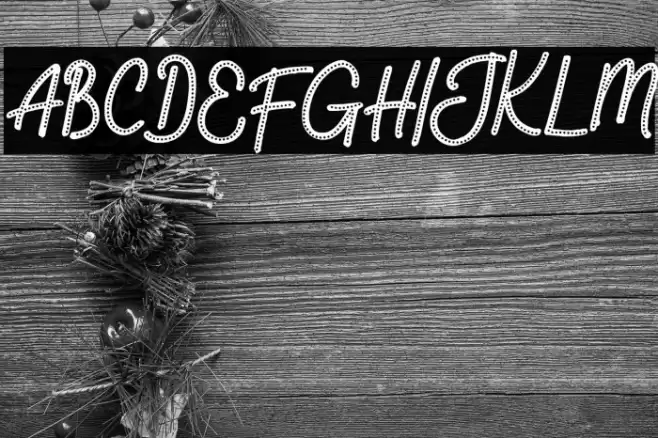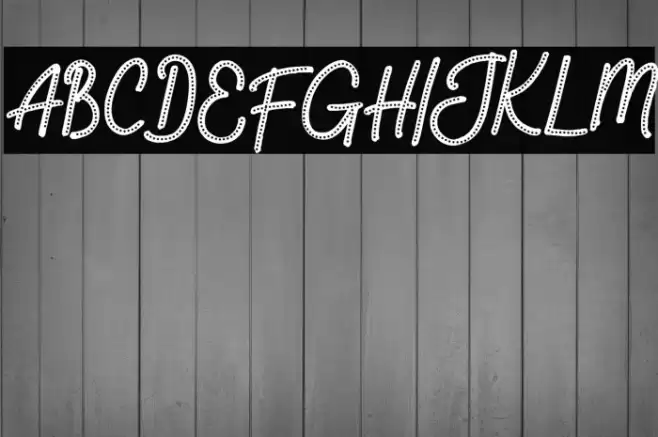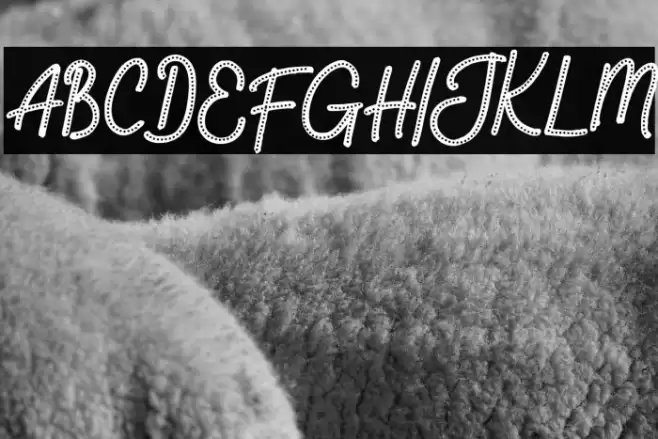
HappyFunFREE Font
HappyFunFREE Description
This playful and whimsical font features a dotted outline style that adds a sense of fun and creativity. The characters are crafted with a casual, handwritten feel, giving it a lively and informal appearance. The uppercase letters are bold and prominent, while the lowercase letters maintain a consistent style with a slightly more relaxed form. The numbers and special characters follow the same playful design, making it versatile for various creative projects. The font's unique dotted pattern adds texture and visual interest, making it stand out in any design.
A playful, dotted outline font with a whimsical, handwritten style from Uncategorized fonts.
- Proposed Projects: Ideal for children's books, playful invitations, greeting cards, and creative branding projects.
- Overall Style: Playful, Whimsical
- Use Case: Headlines, Logos, Creative Projects